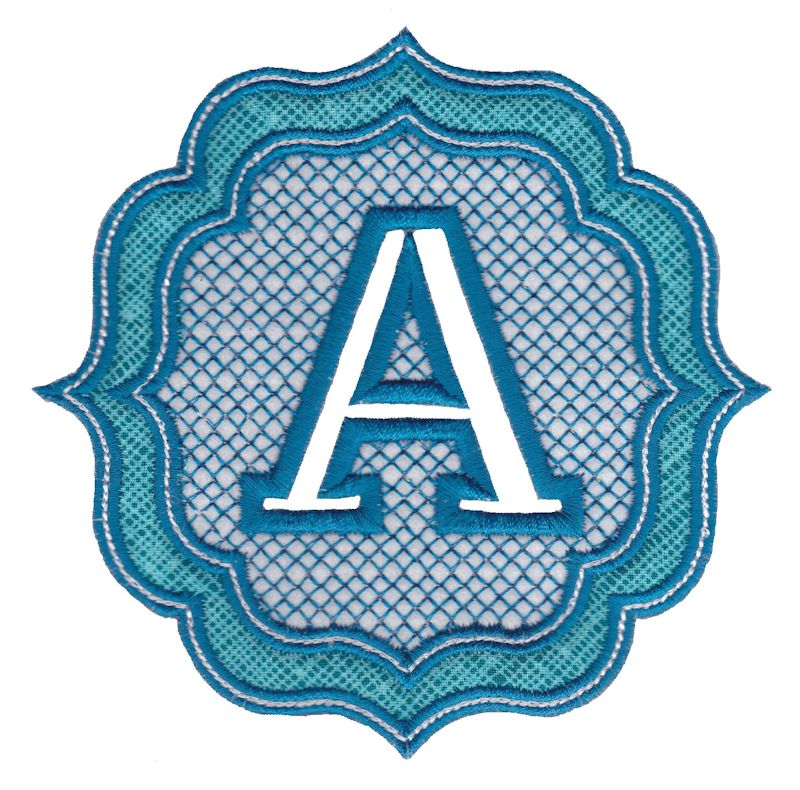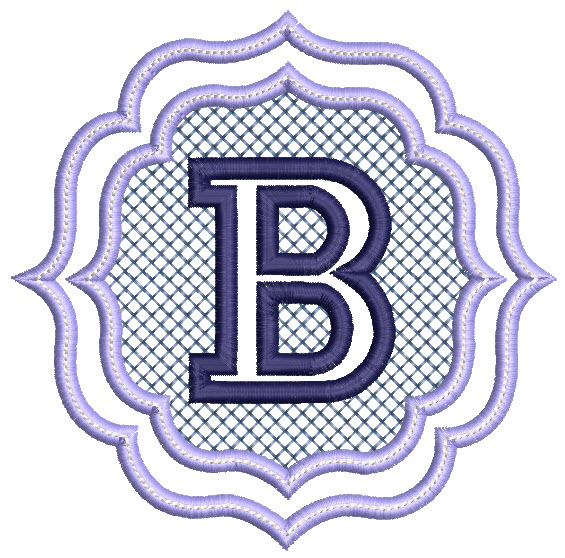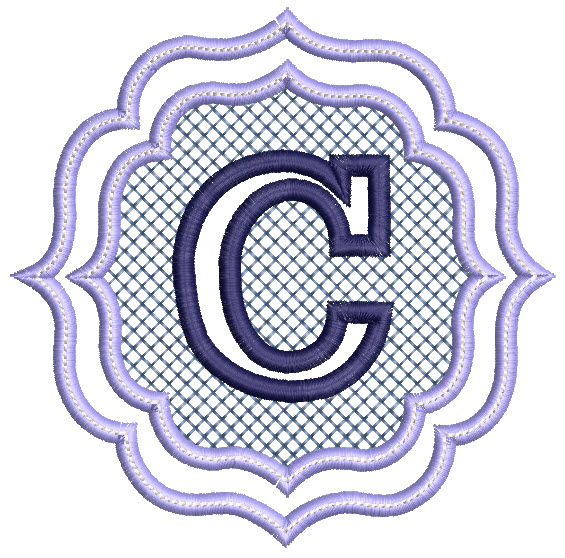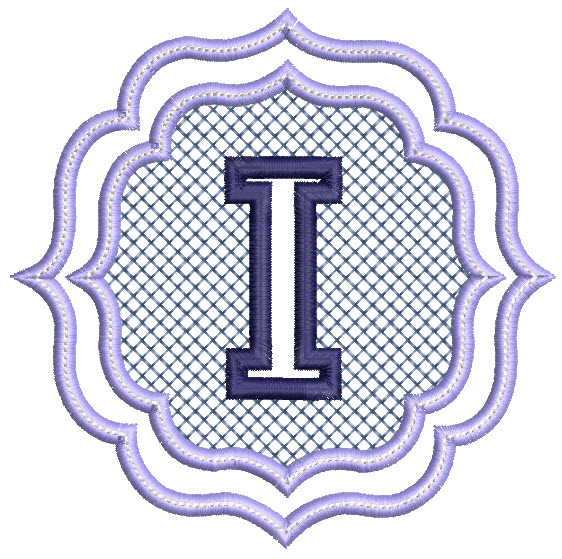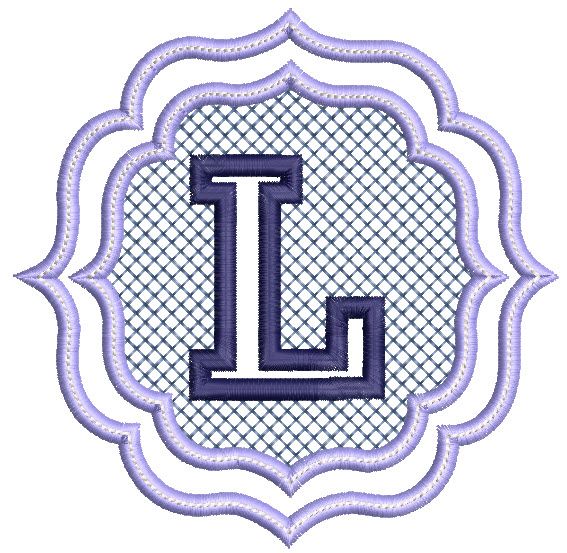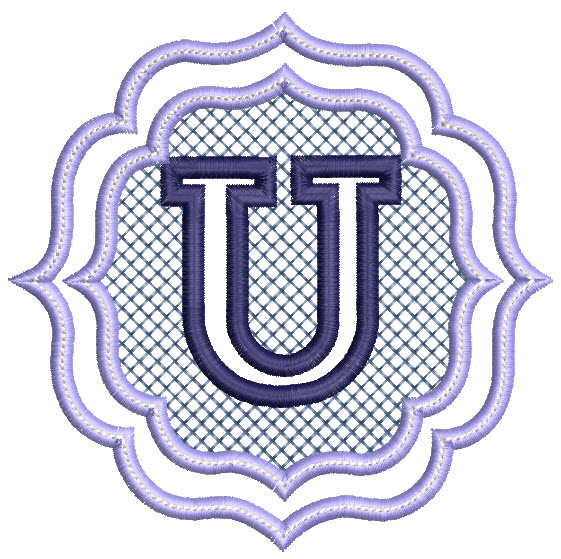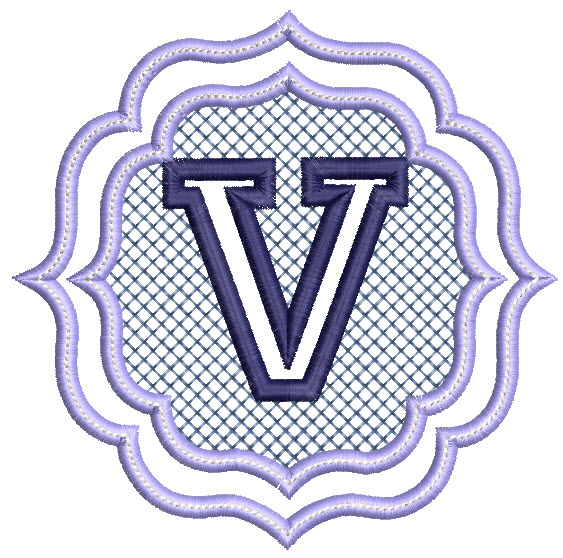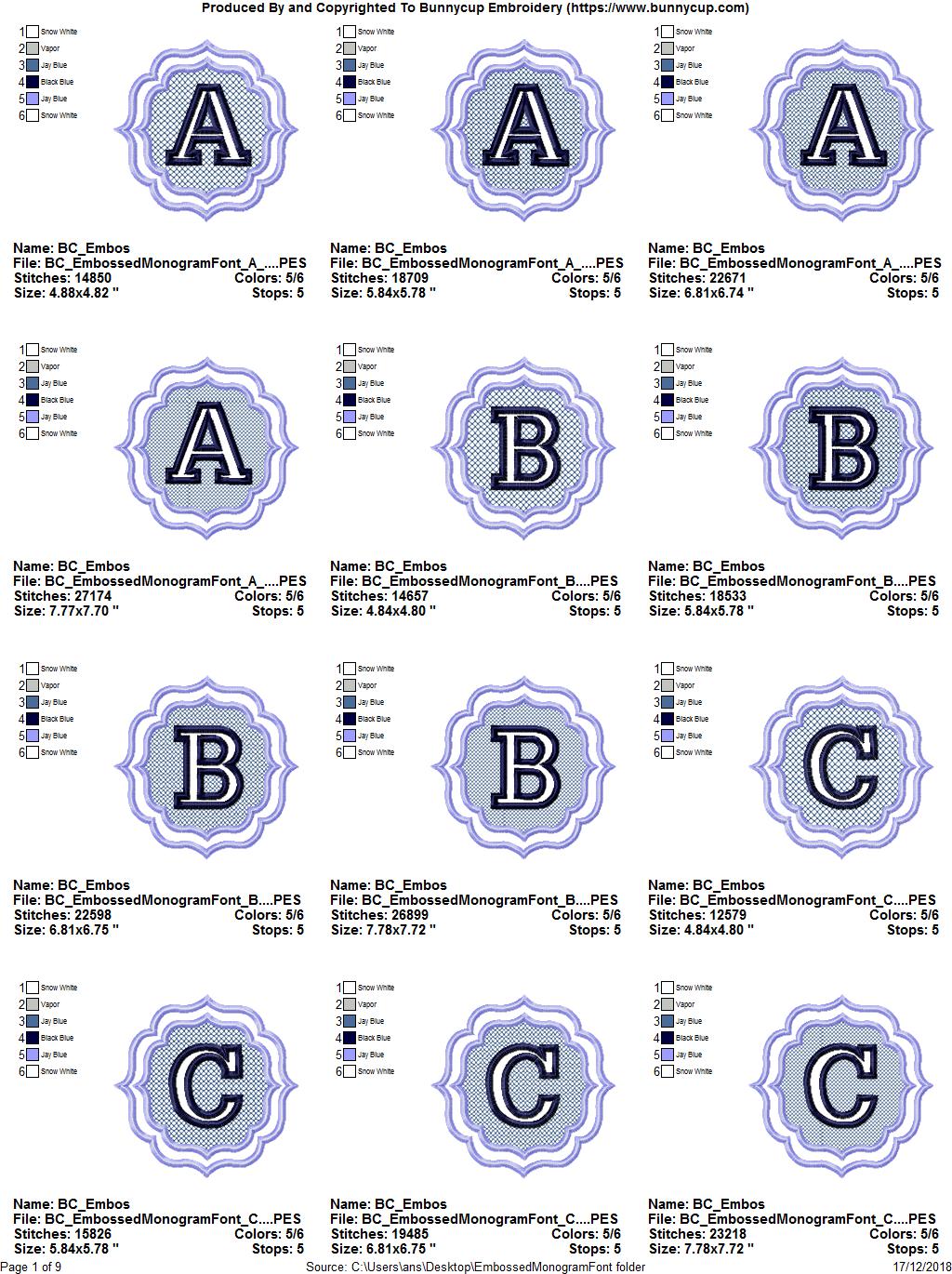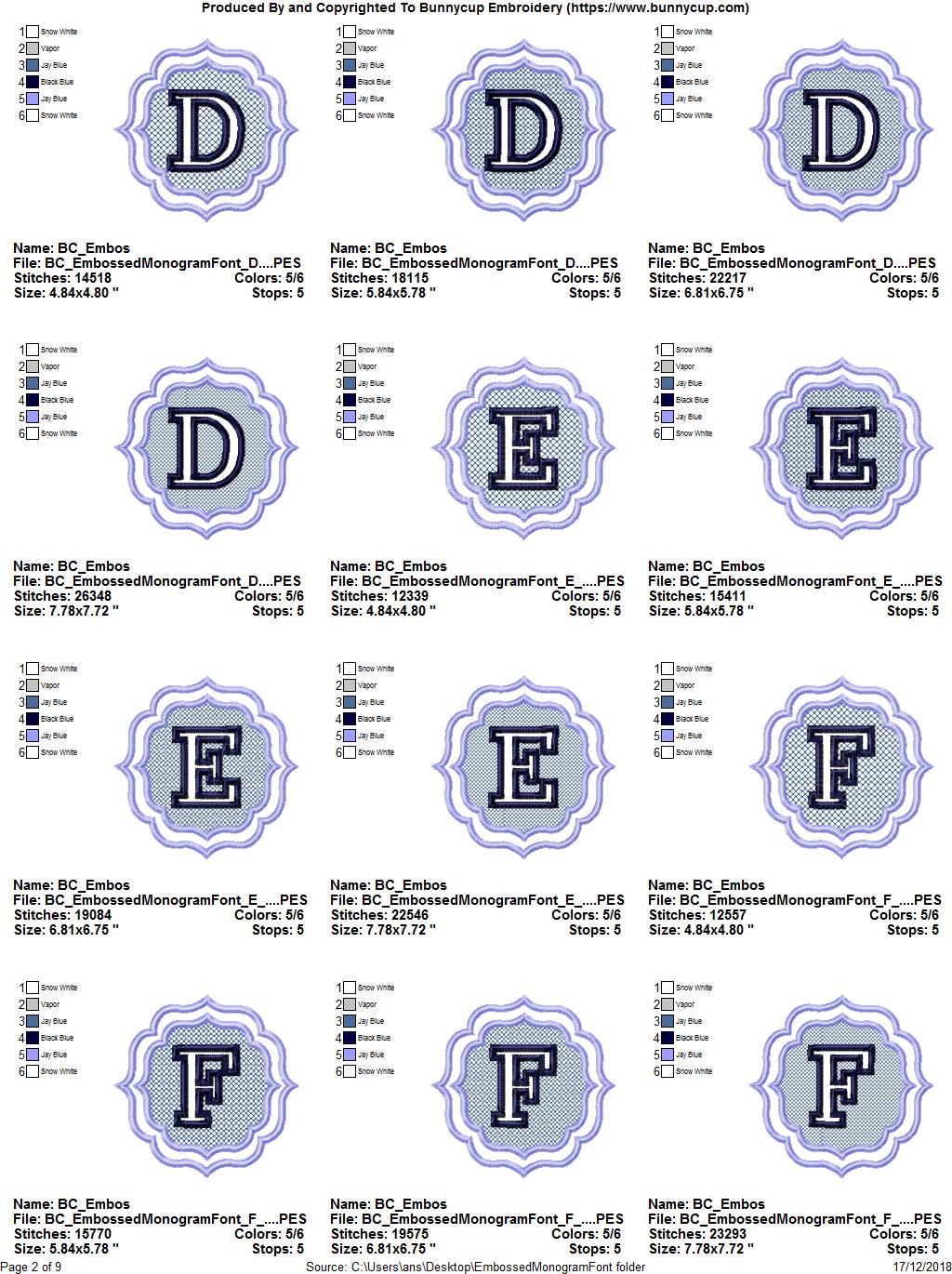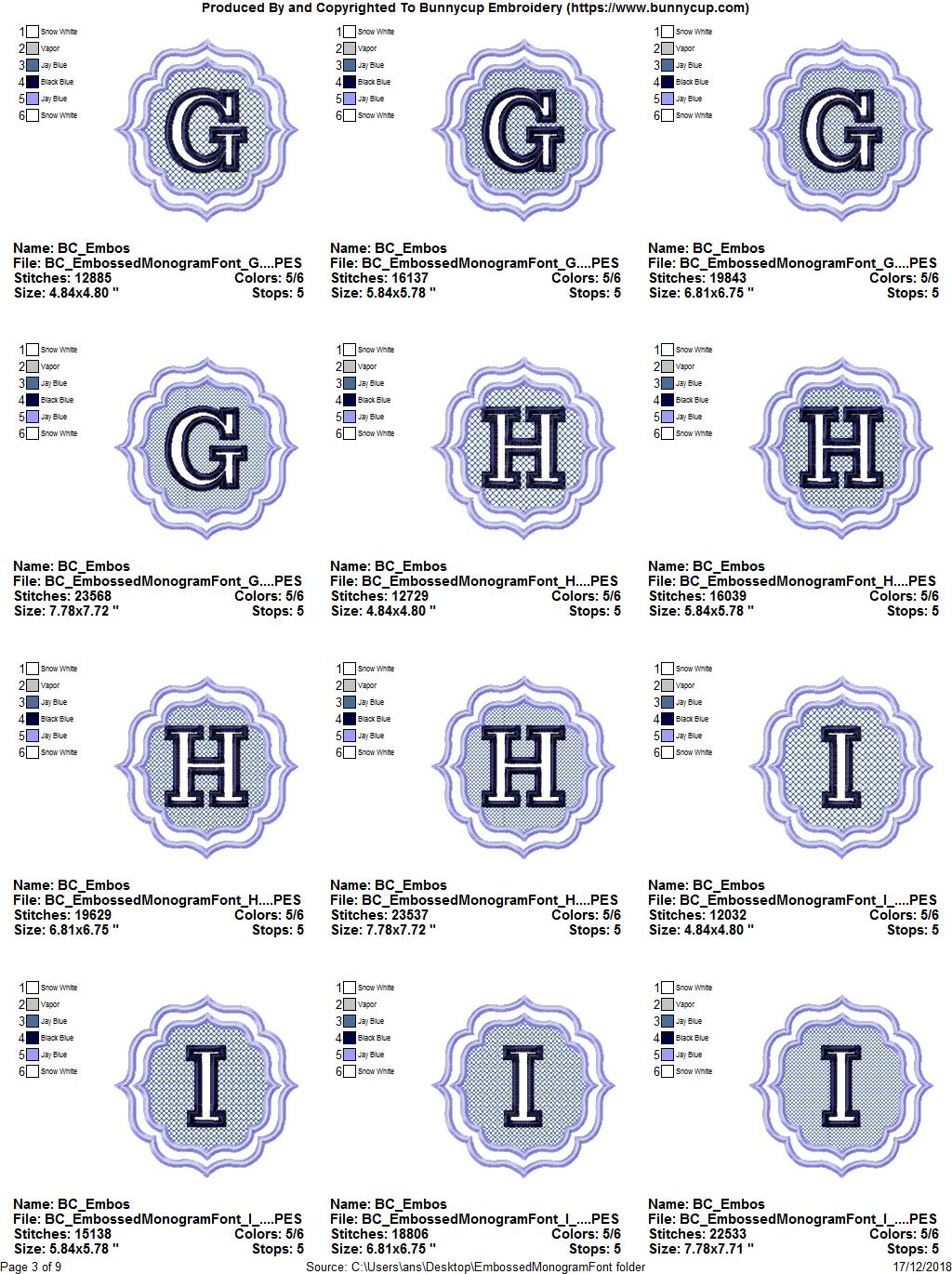
Embossed Monogram Font
Embossed Monogram Font is a stunning font that is perfect for towelling and other plush fabrics. You can apply an applique border as shown in the A image below (placement and tack downlines are needles 1 and 2) or you can omit needles 1 and 2 if you do not want an applique border. The knock down, letter and borders can be in different colors - of if you prefer a one color design, just keep it threaded with the one color. The options are endless! This set includes 4 sizes - 5, 6, 7 and 8 Inches (please note 4 inch is not available). EMB files are also included in the downloads for precise resizing with the Wilcom Truesizer software (a free resizing software available at the Wilcom website). See our full range of